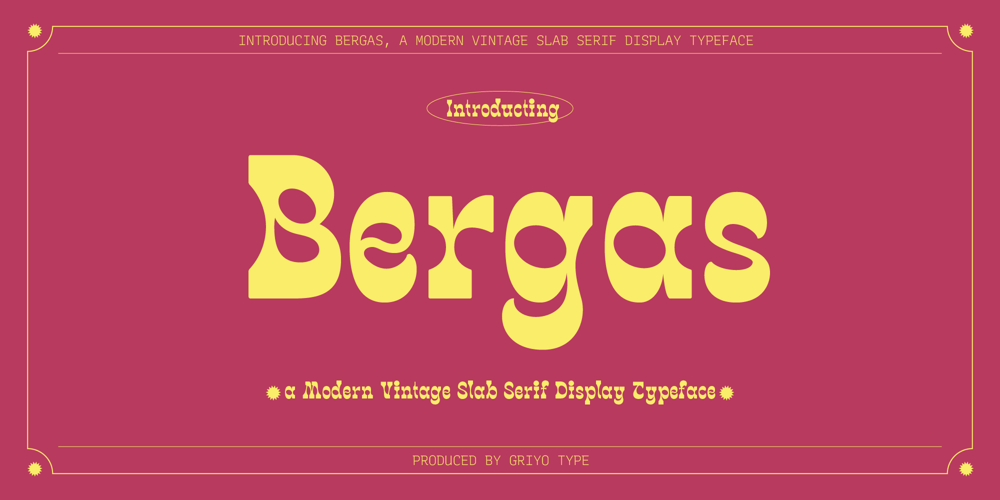
Bergas Font Family was designed by Aprian Sembada and published by Griyotype. Bergas contains 1 styles and family package options. Bergas is a cool, whimsical and wavy display font. Whether you use it for cartoon related designs, children games or just any creation that requires a lovely touch, this font will be an amazing choice.